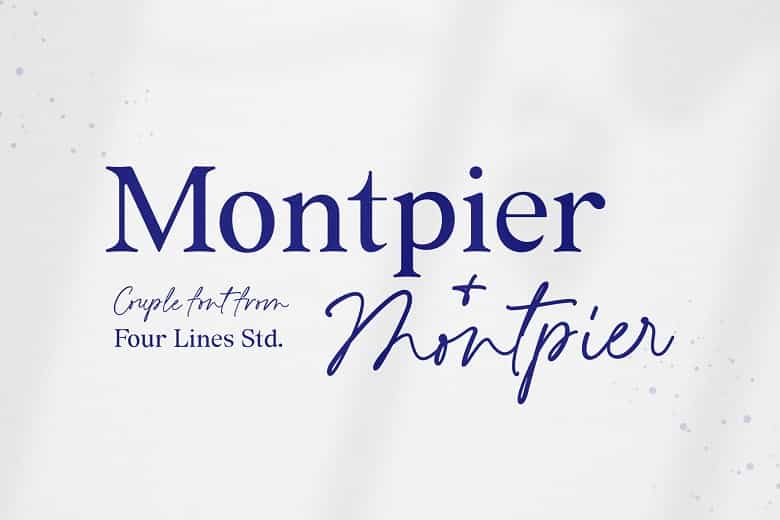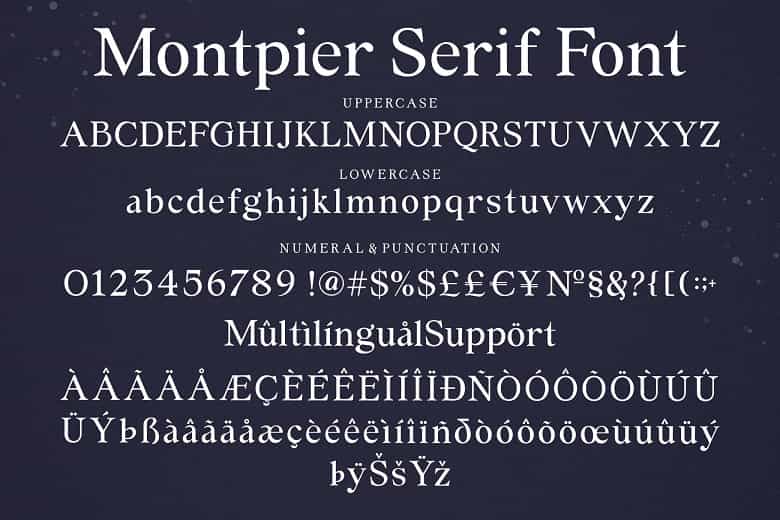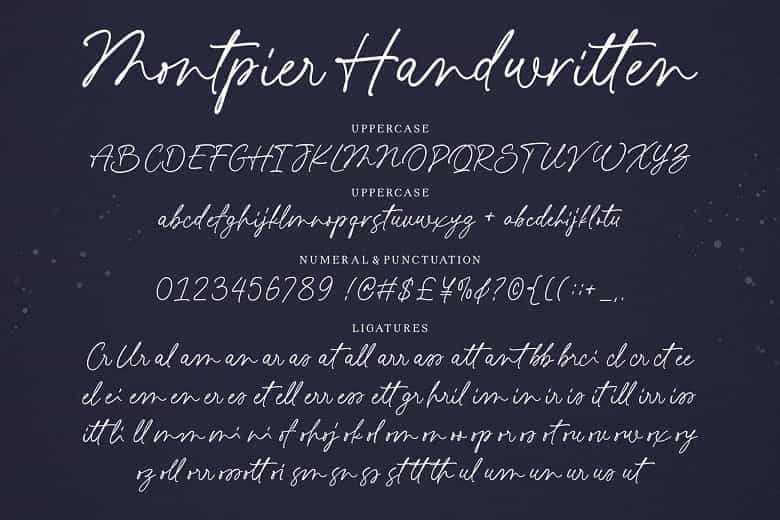
Introducing Montpier, a beautiful font duo consisting of a script and a serif font that can be easily incorporated into your next design. This font duo includes OpenType, which contains ligatures, alternates, numerals, punctuation marks, and multilingual support, thus increasing its applicability in different design projects.